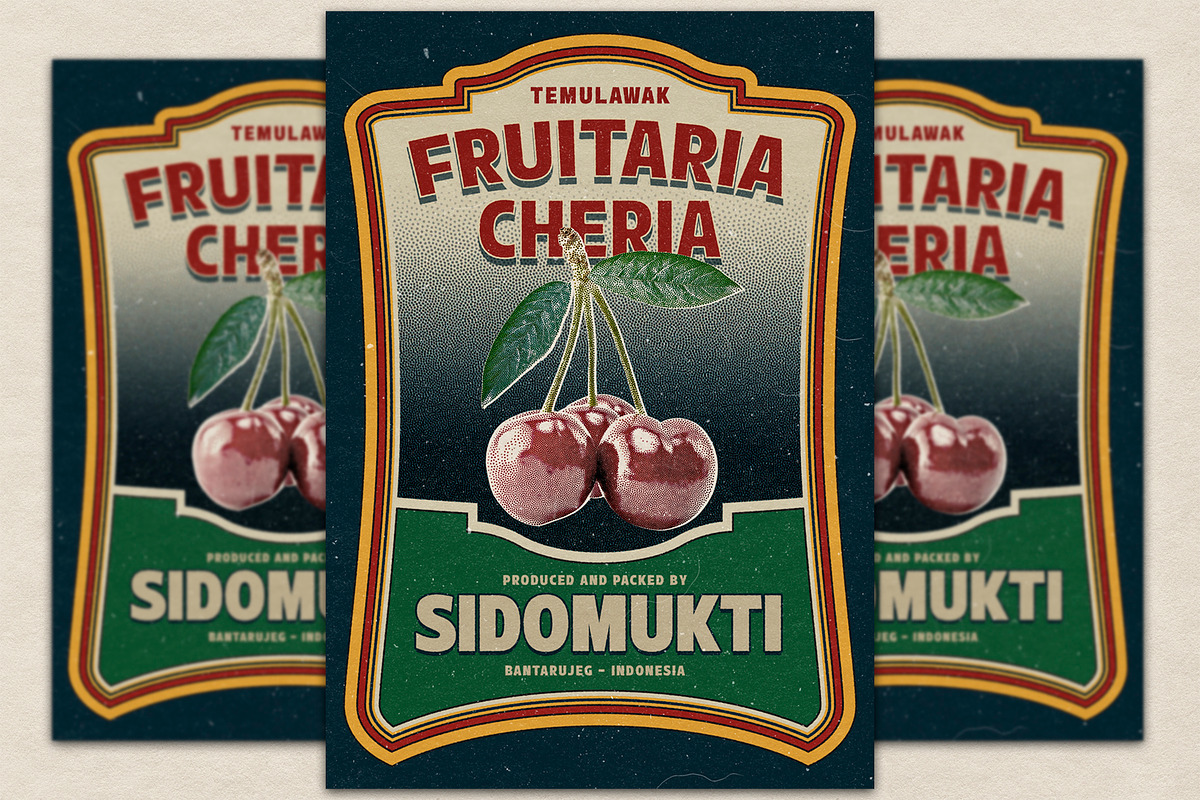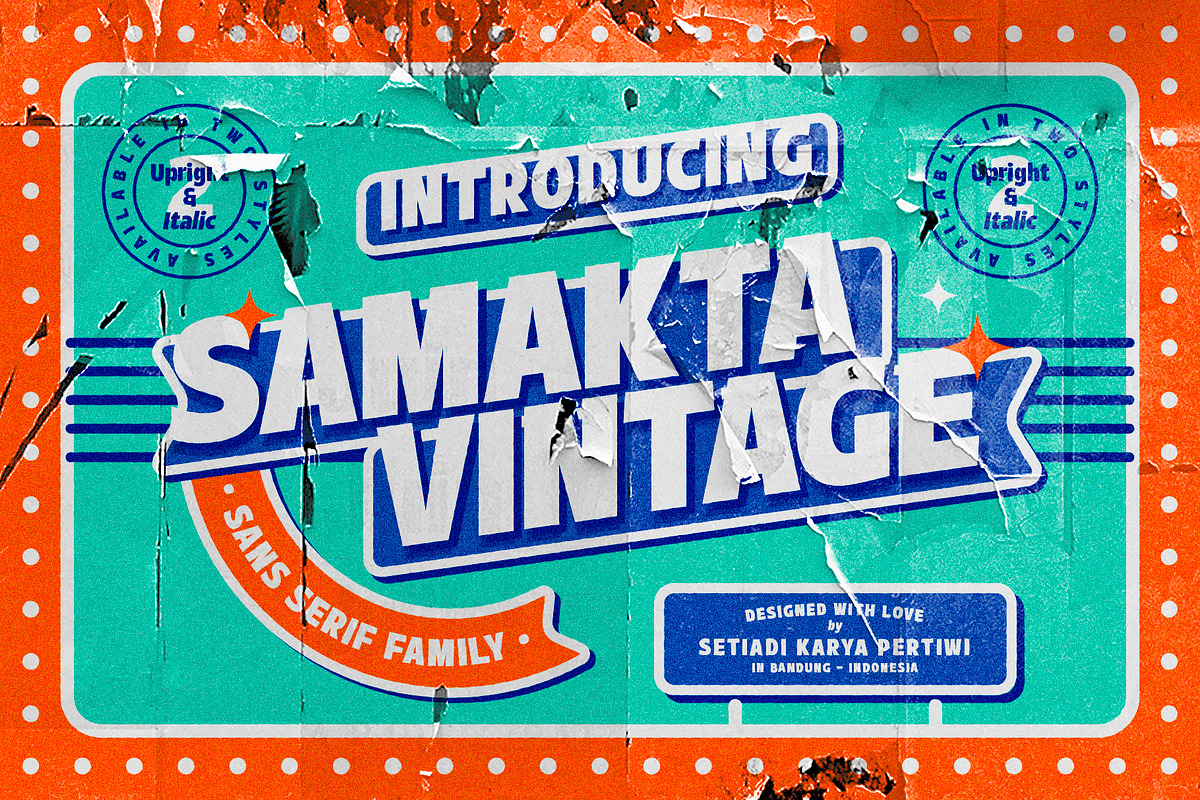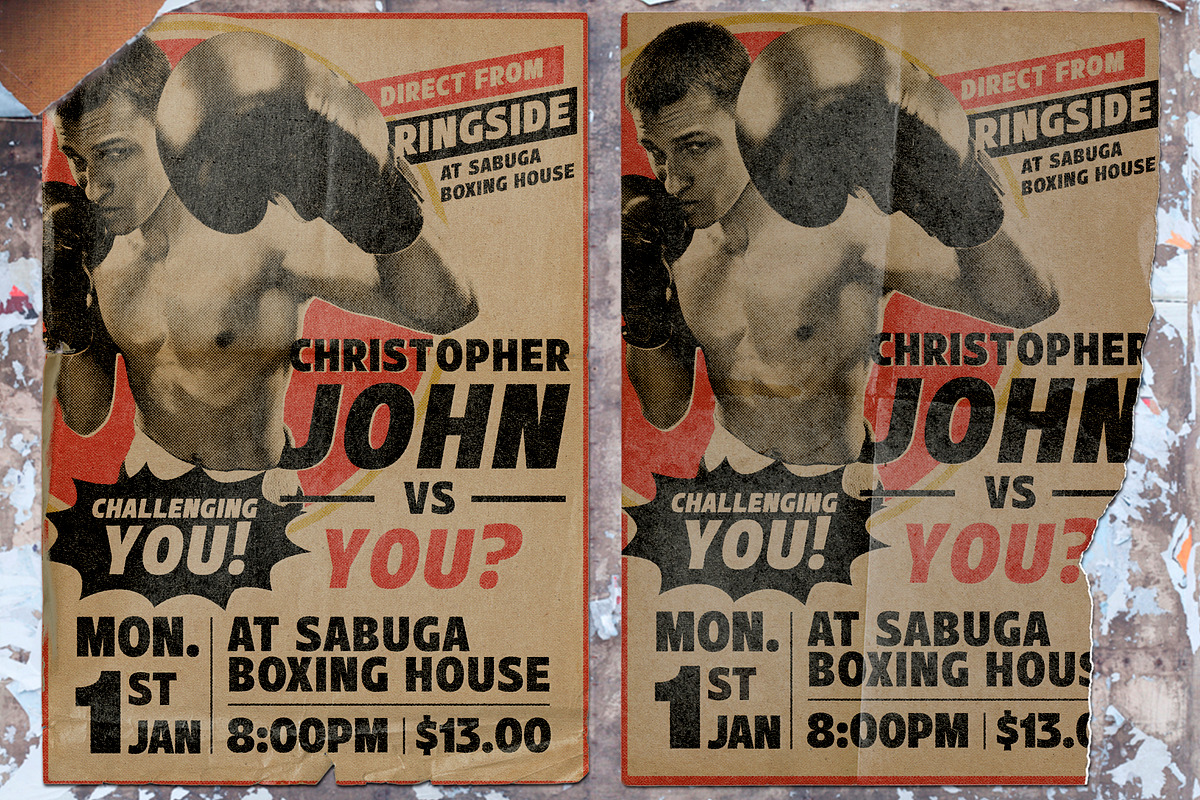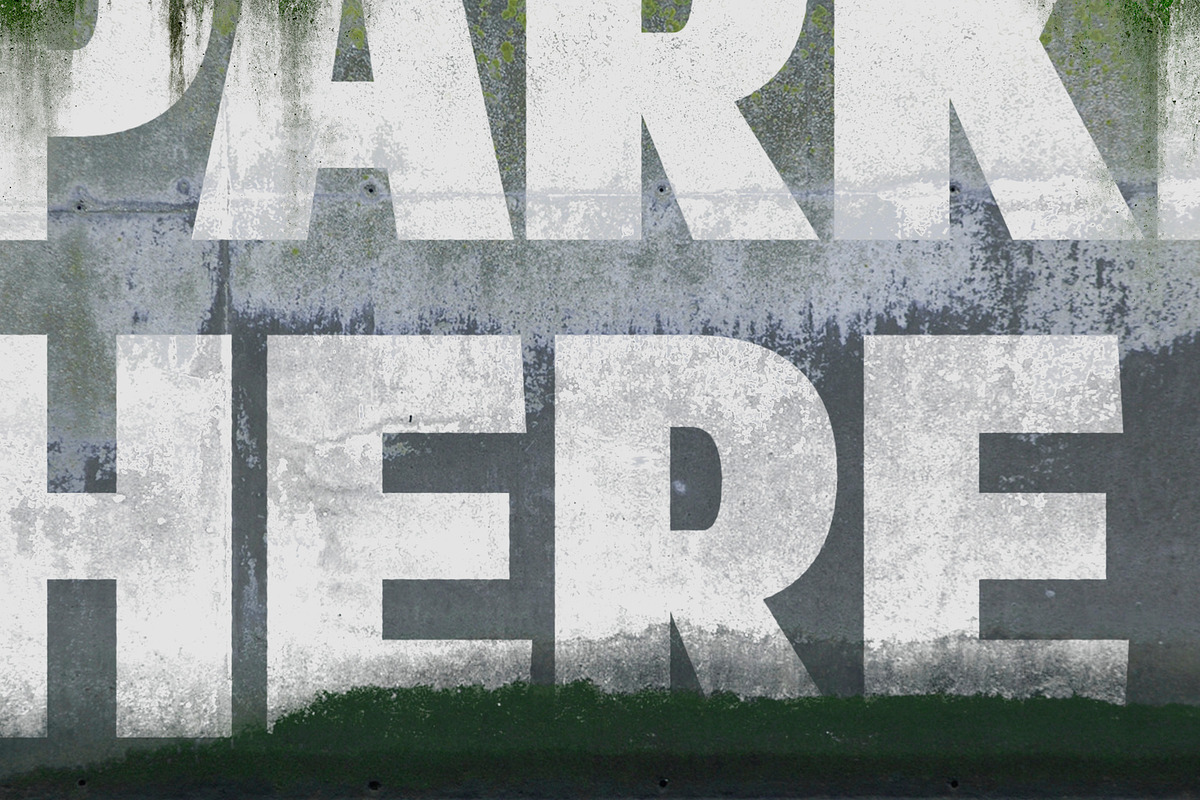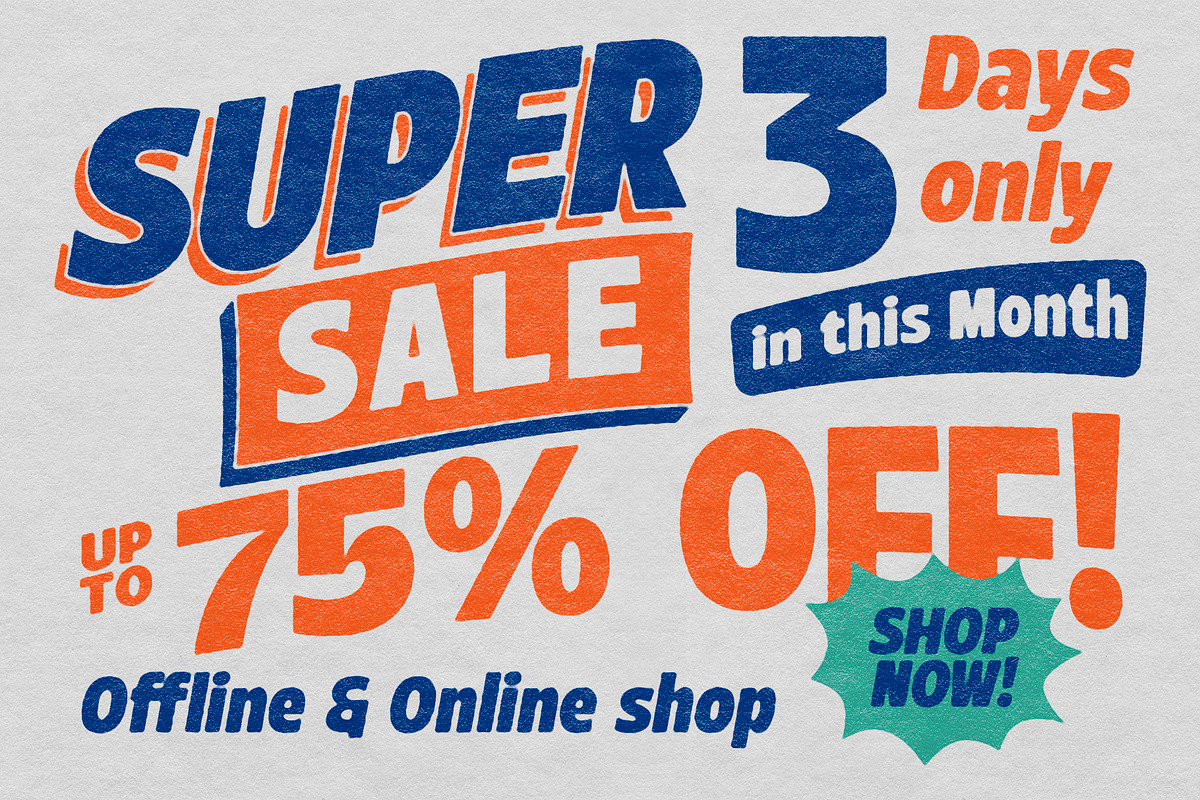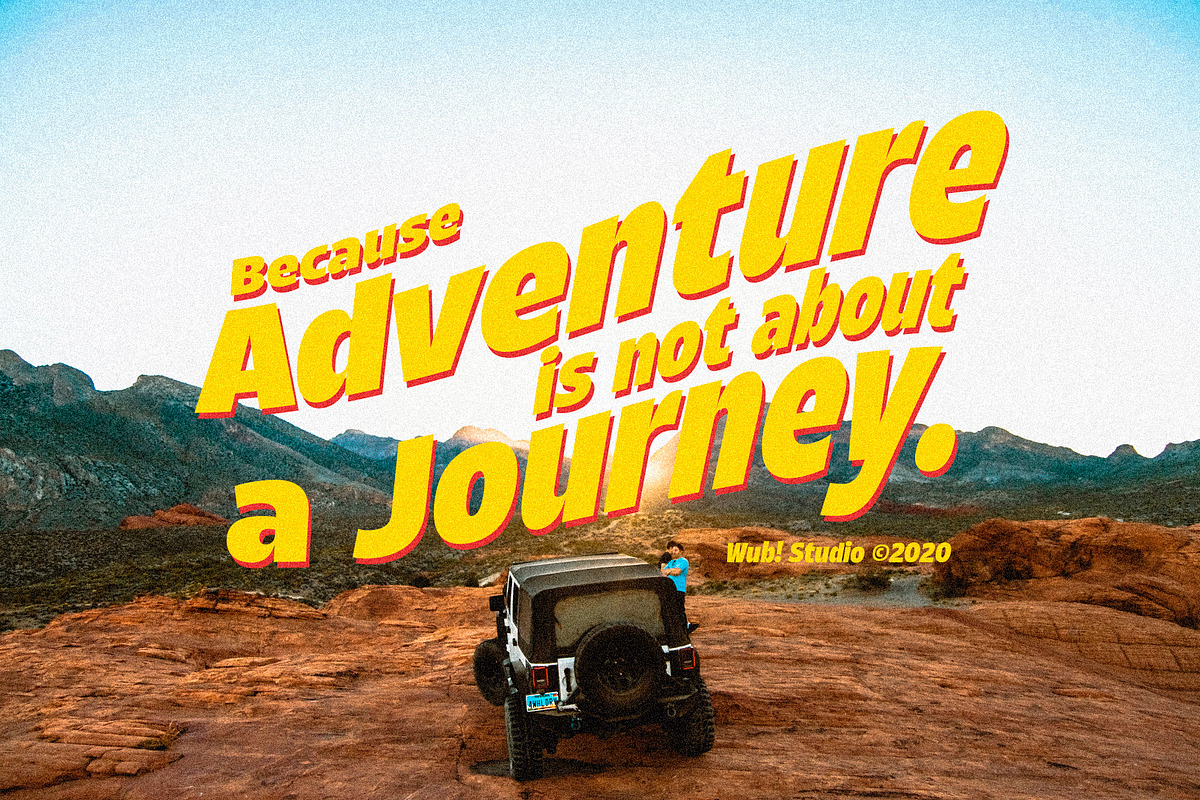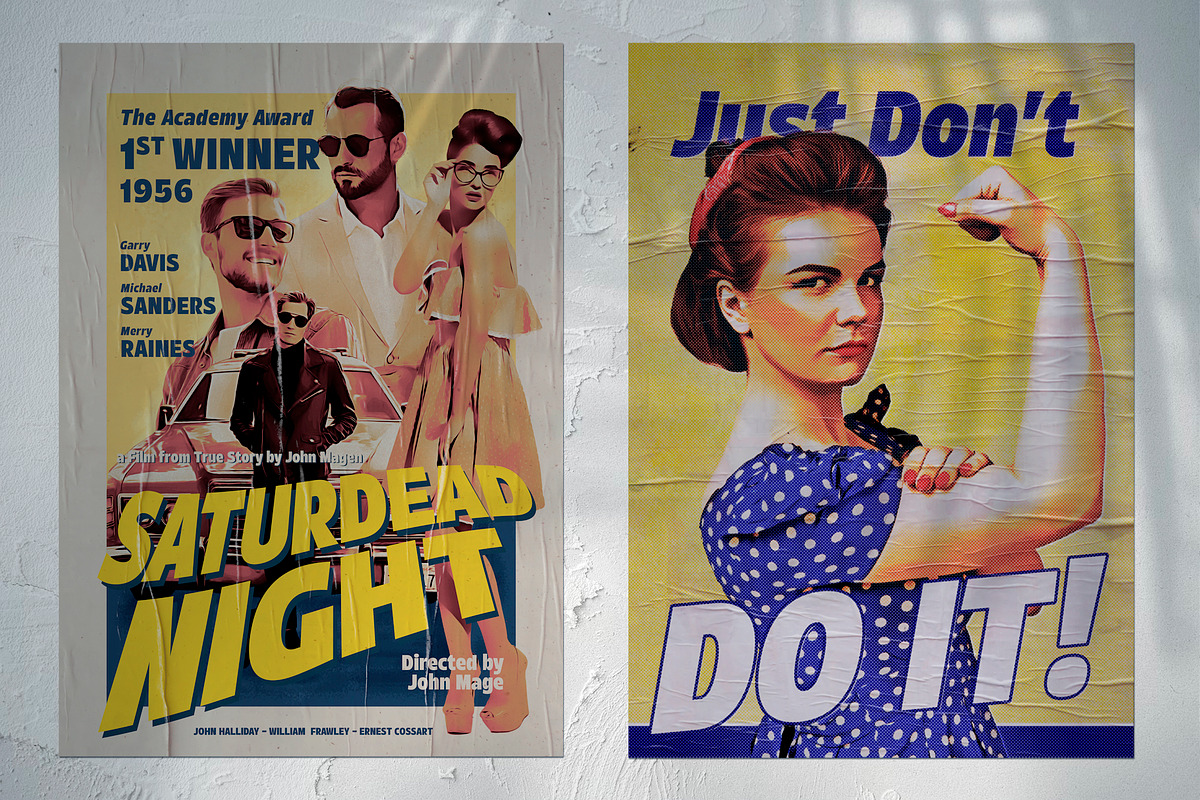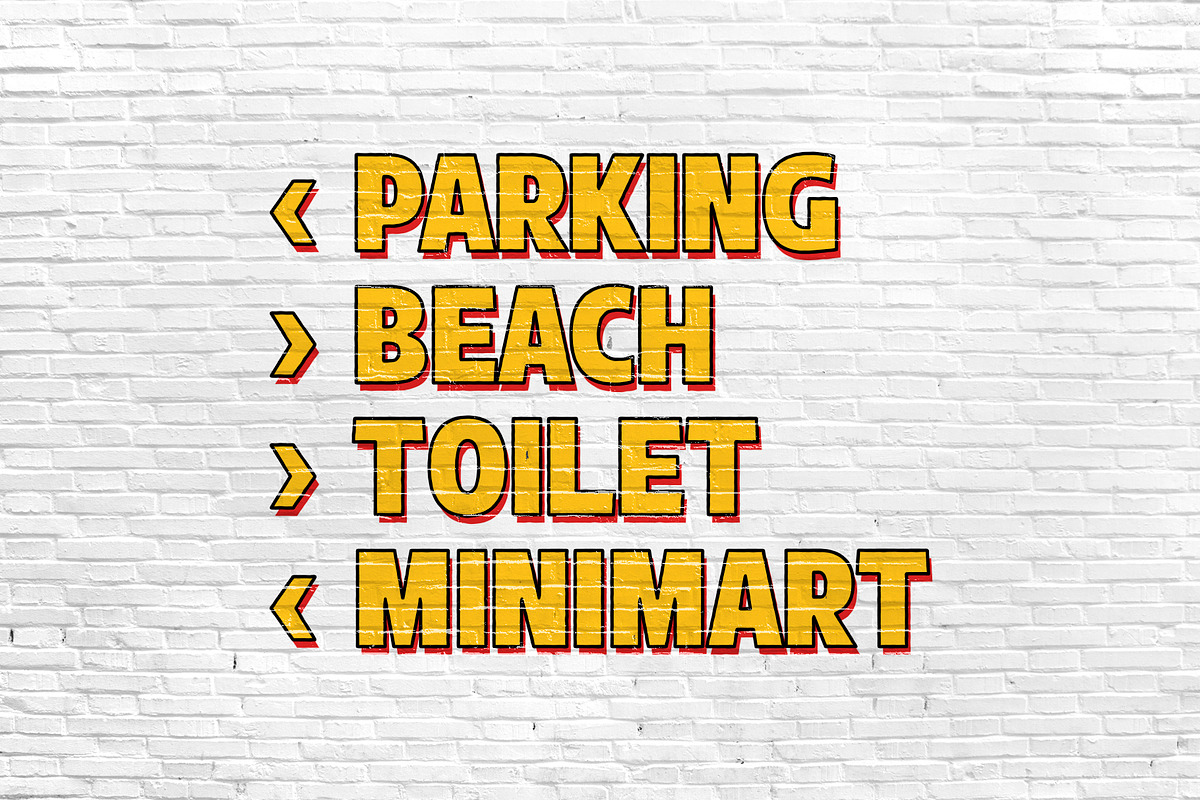
Samakta Vintage
Samakta Vintage is a Sans Serif font inspired by a restaurant sign in the 60s. Actually the signpost is a sign painting, but it looks very neat and cool. And also very straightforward looks.
Vintage Samakta consists of two families, namely Upright and Italic. Combine the two families for a unique variety. This font is very compatible for making posters, restaurant menus or being used as restaurant signs.
As the name implies, a design with a Vintage theme is perfect for this font. But it is possible that other styles can use this font.